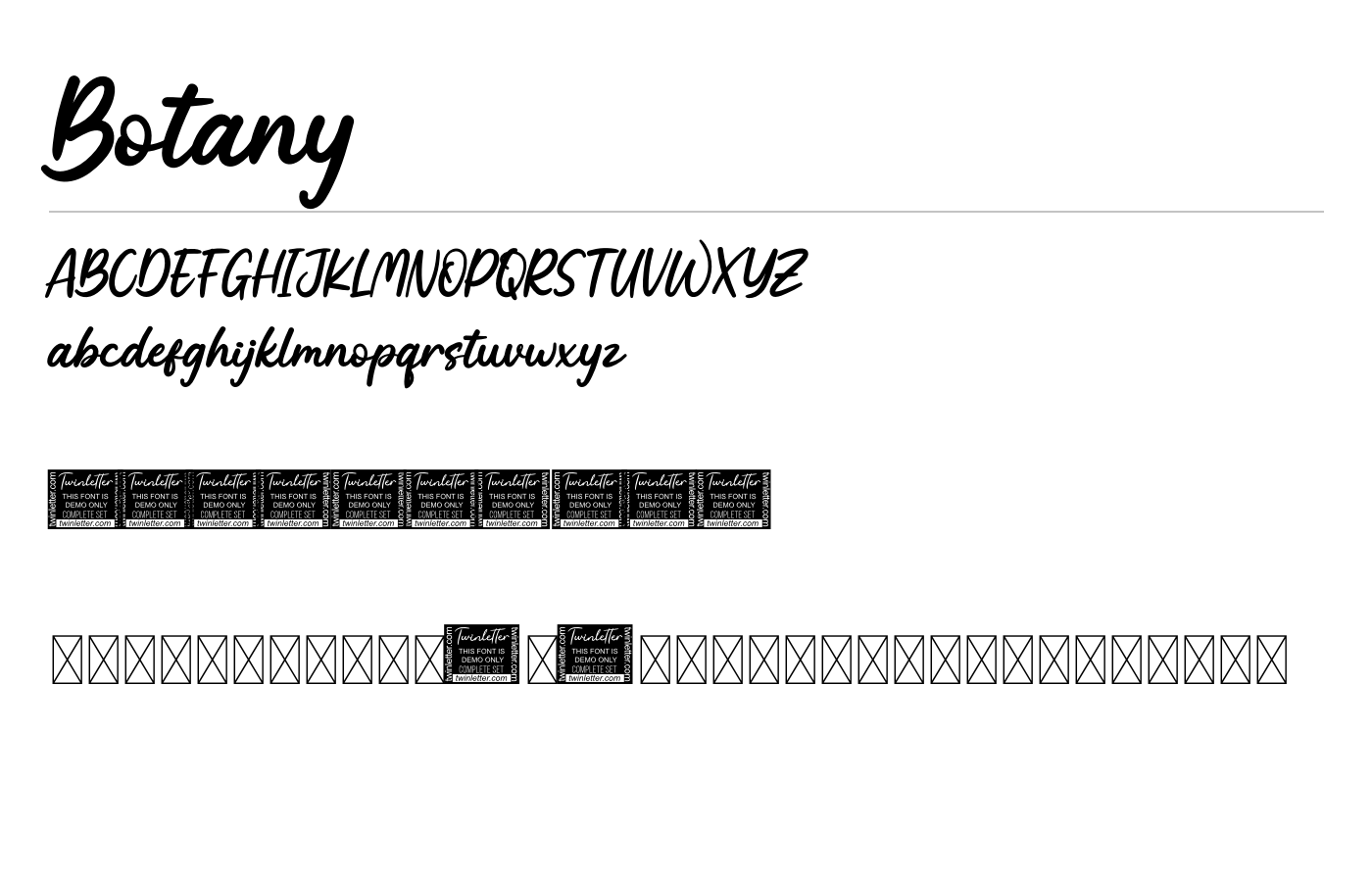
Botany is a lively script font with a casual, handwritten style that feels warm and approachable. Its fluid strokes and moderate contrast make it ideal for designs that want to convey friendliness and creativity, perfect for branding, invitations, and social media graphics. This font’s energetic character adds a personal touch that works beautifully in informal yet stylish contexts.
Botany Font
About Botany Font